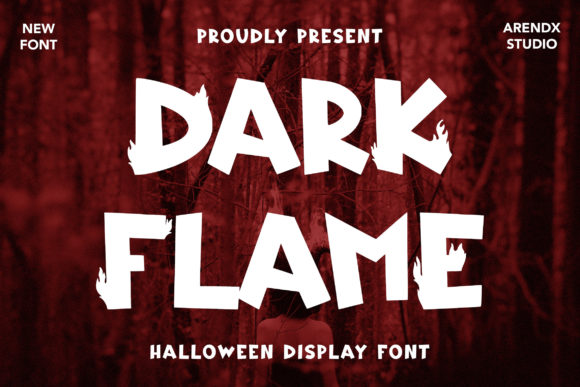
Welcome to the realm of Dark Flame – a font ensnaring both boldness and merriments, designed to captivate and inspire. With its whimsical nature, Dark Flame paints the perfect canvas for any macabre project.
Adorned with meticulously crafted glyphs and swashes, Dark Flame presents an unparalleled opportunity to fashion compelling visuals with effortless grace. Unleash your imagination and transport your project into a realm of enchantment.
Whether you seek to breathe life into chilling horror tales, haunting illustrations, or even playful school projects, Dark Flame emerges as your perfect companion.
Beyond its versatility, Dark Flame beckons you to explore the depths of your creativity, inviting you to craft awe-inspiring designs that resonate with your audience.
Embrace the mystique of Dark Flame and witness the transformation of your projects into captivating masterpieces.